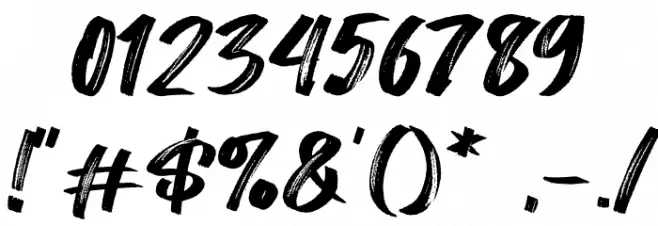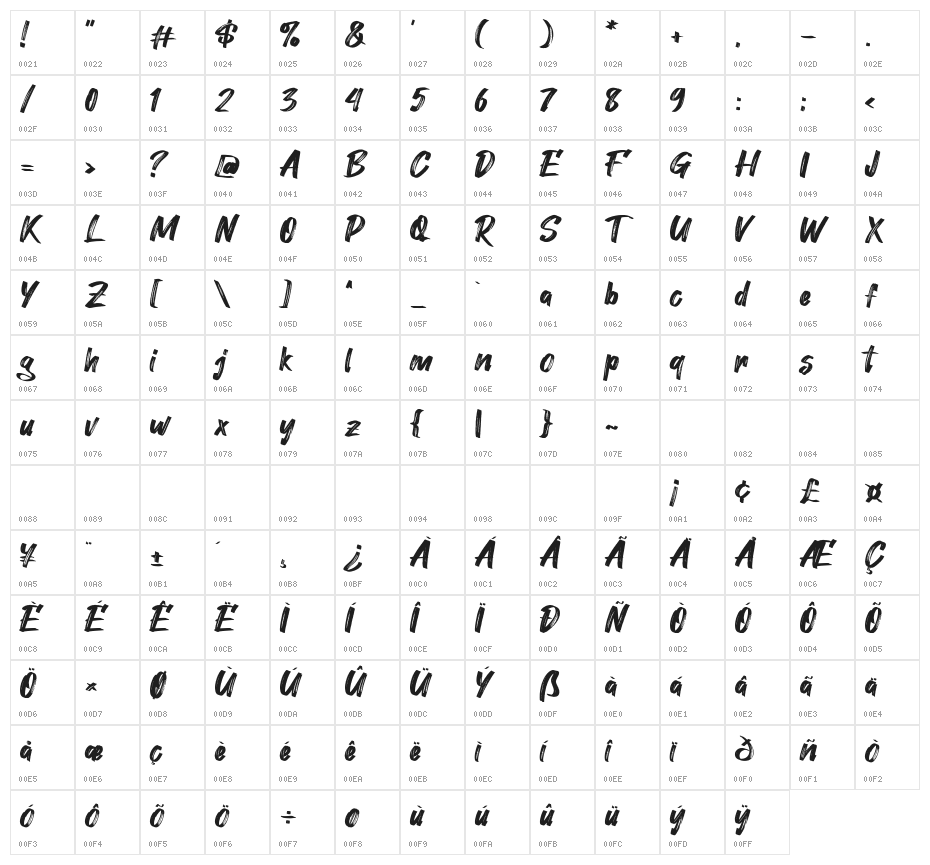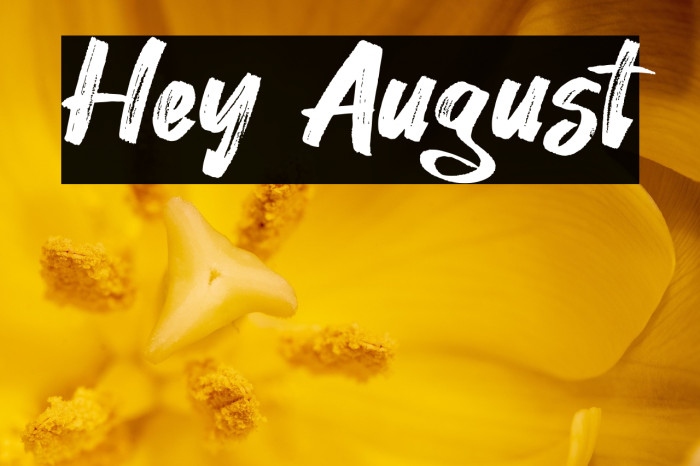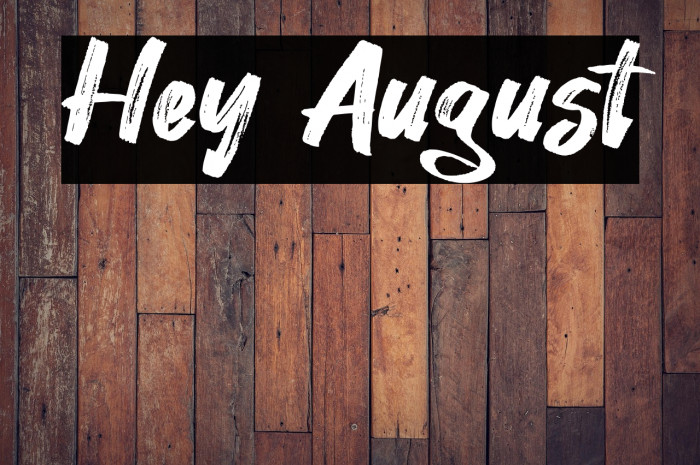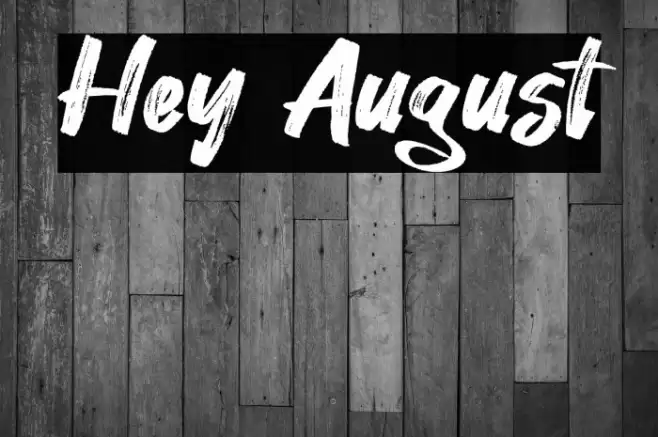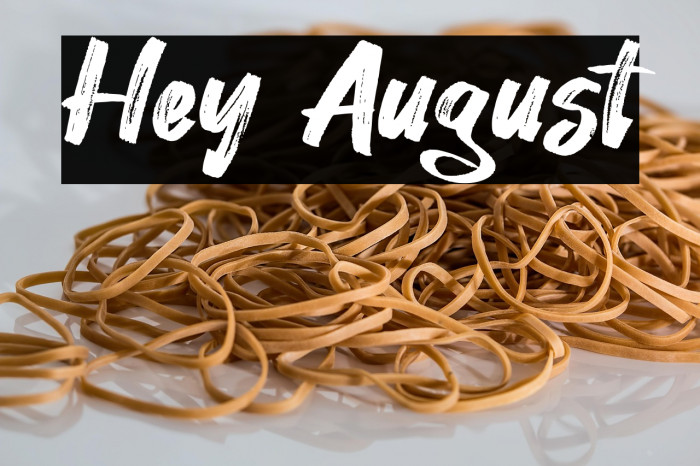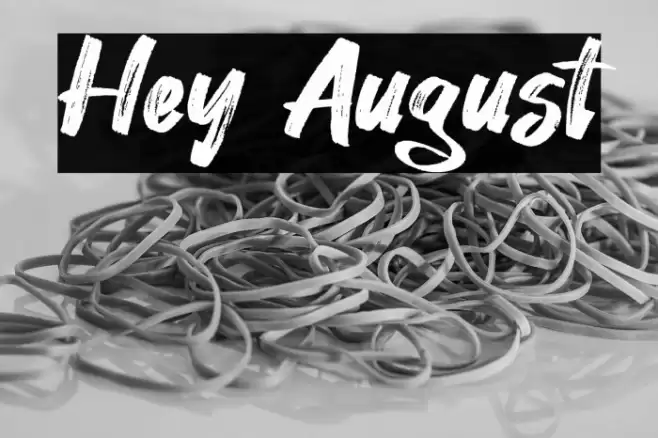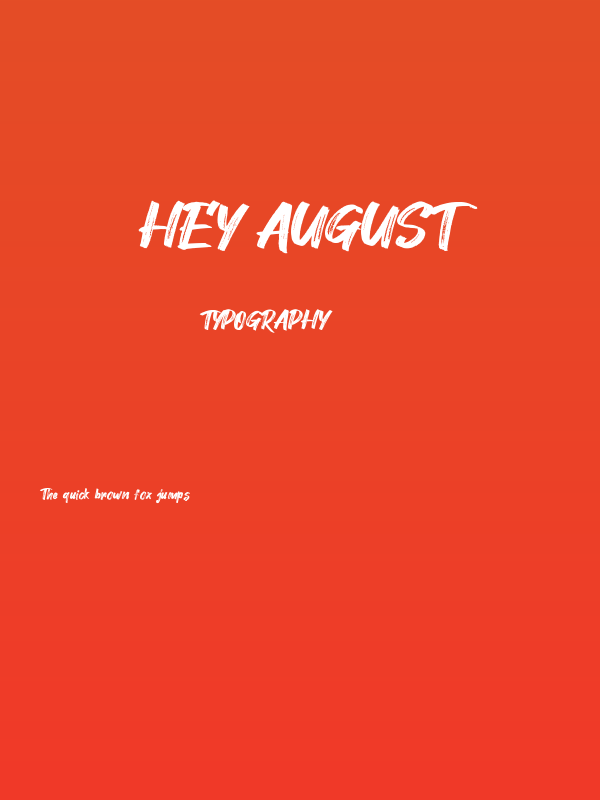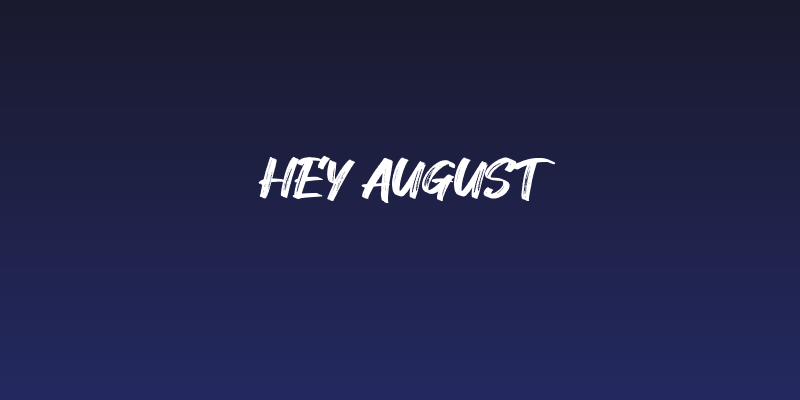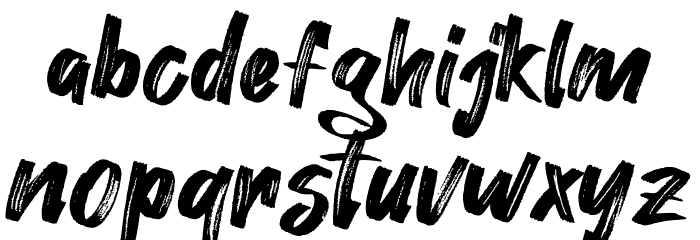
Hey August Font
Hey August Description
This font exudes a bold, energetic style with its brush-like strokes and dynamic character shapes. The uppercase and lowercase letters are crafted with a sense of movement, giving a lively and informal appearance. The numbers and special characters maintain this energetic style, ensuring consistency across all glyphs. The strokes are thick and exhibit a medium contrast, with some variation in width that adds to the hand-drawn aesthetic. This font is perfect for projects that require a personal touch or a sense of spontaneity, such as event posters, social media graphics, or creative branding.